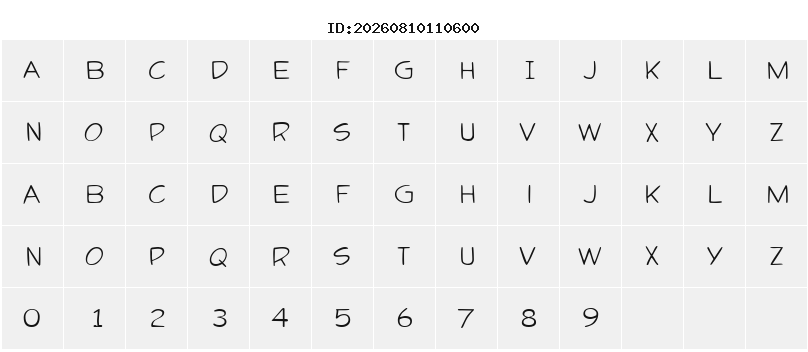
• Font Name: P22 Pop Art
• Font Style: Comic
About P22 Pop Art.ttf
P22 Pop Art.ttf is a modern, elegant sans-serif font designed for ultimate readability and visual harmony. Perfect for branding, headlines, web design, and print materials.